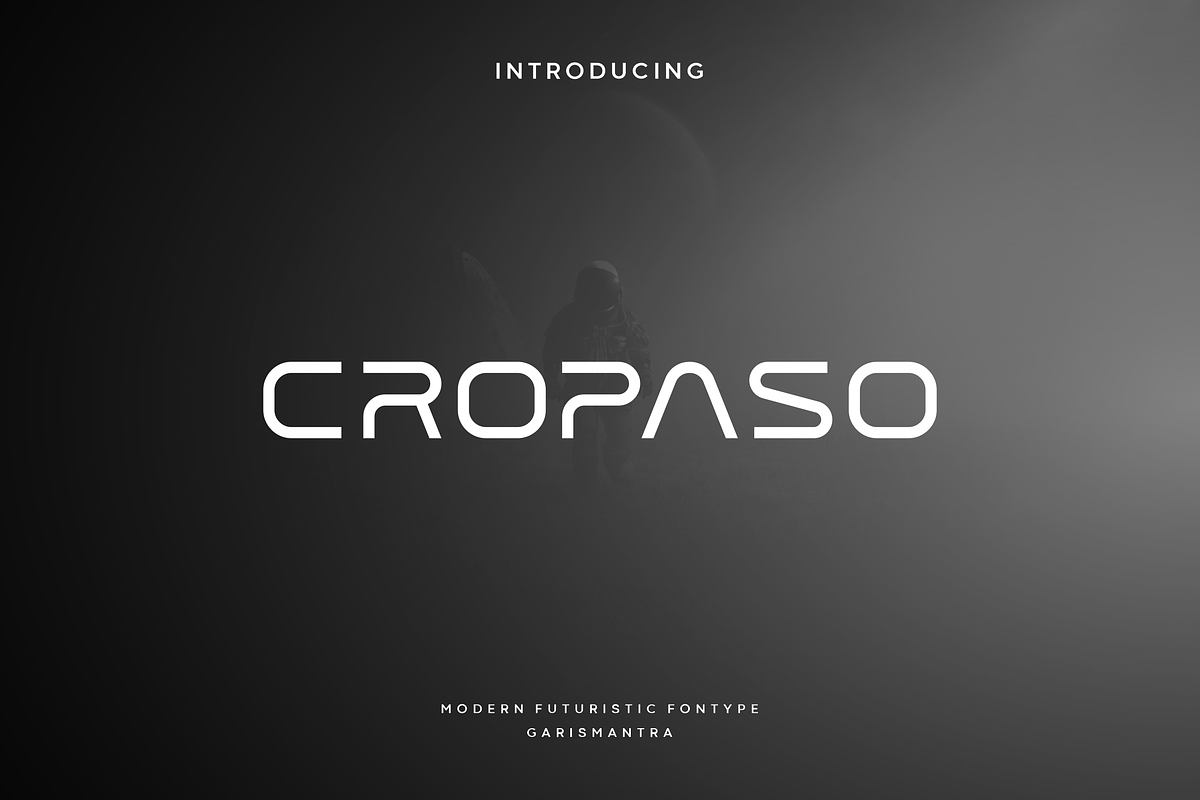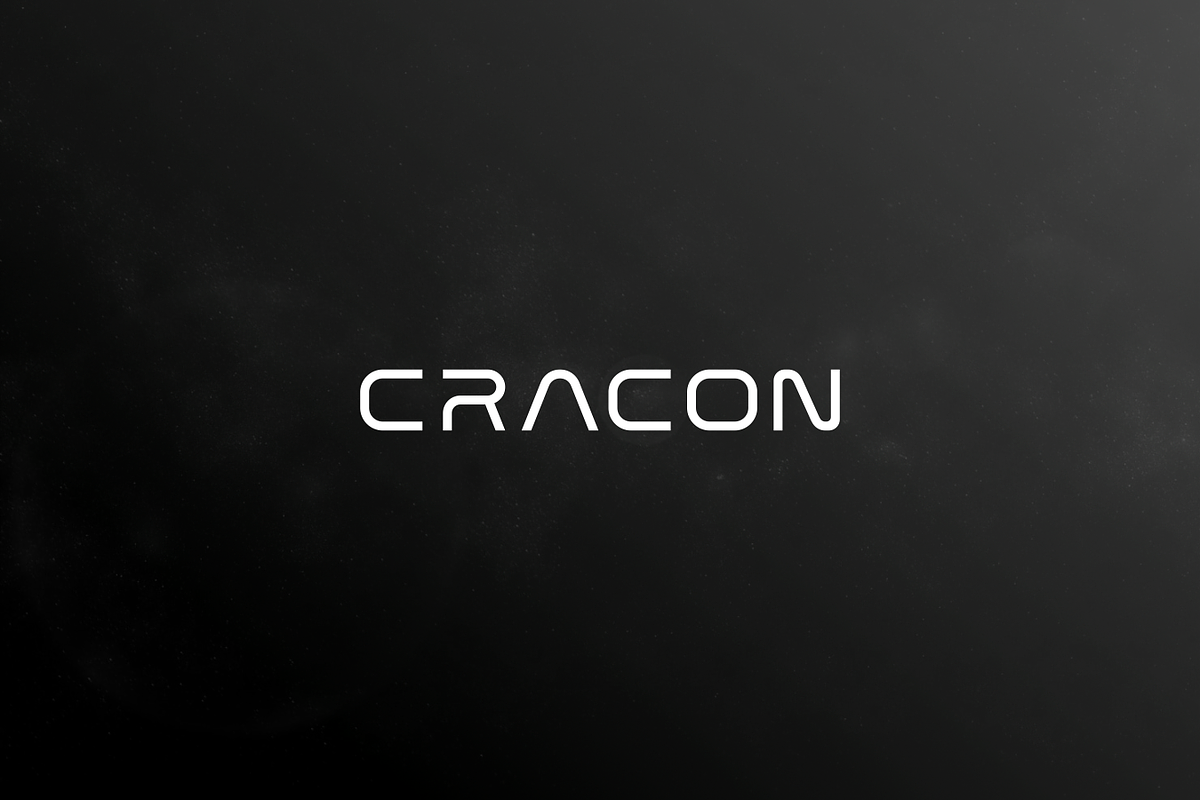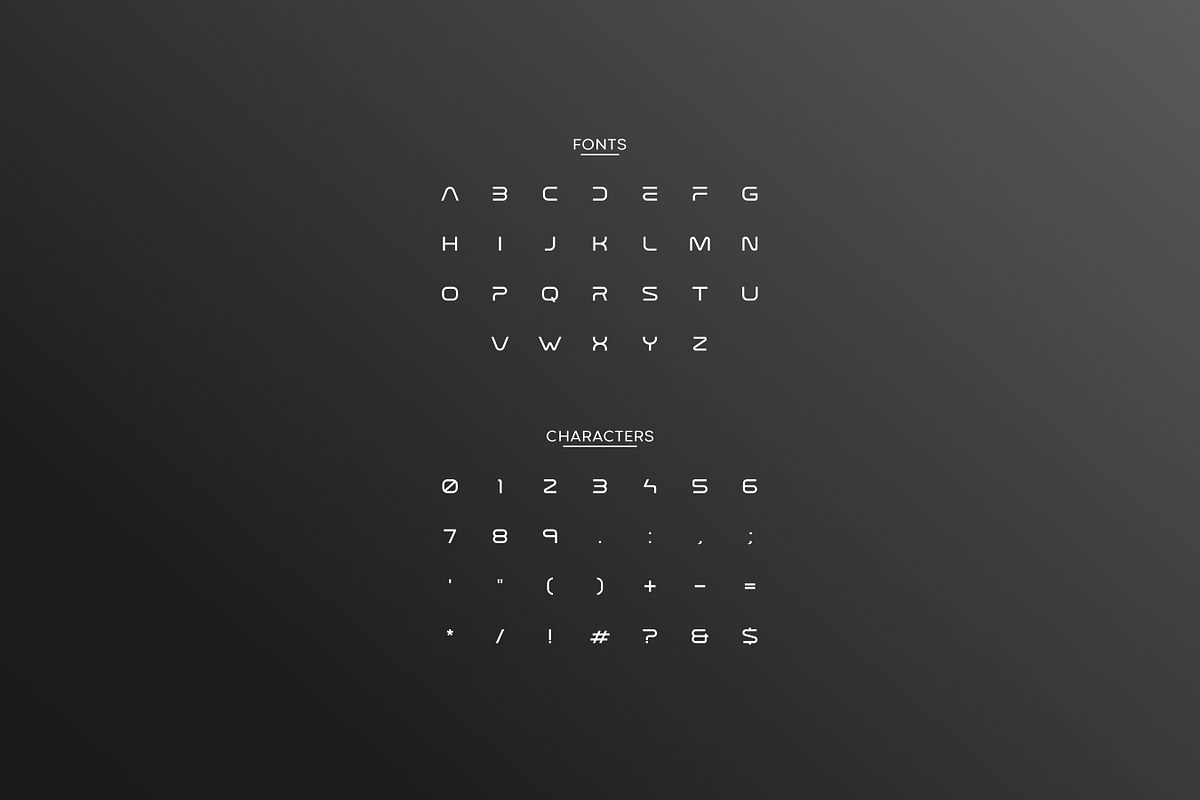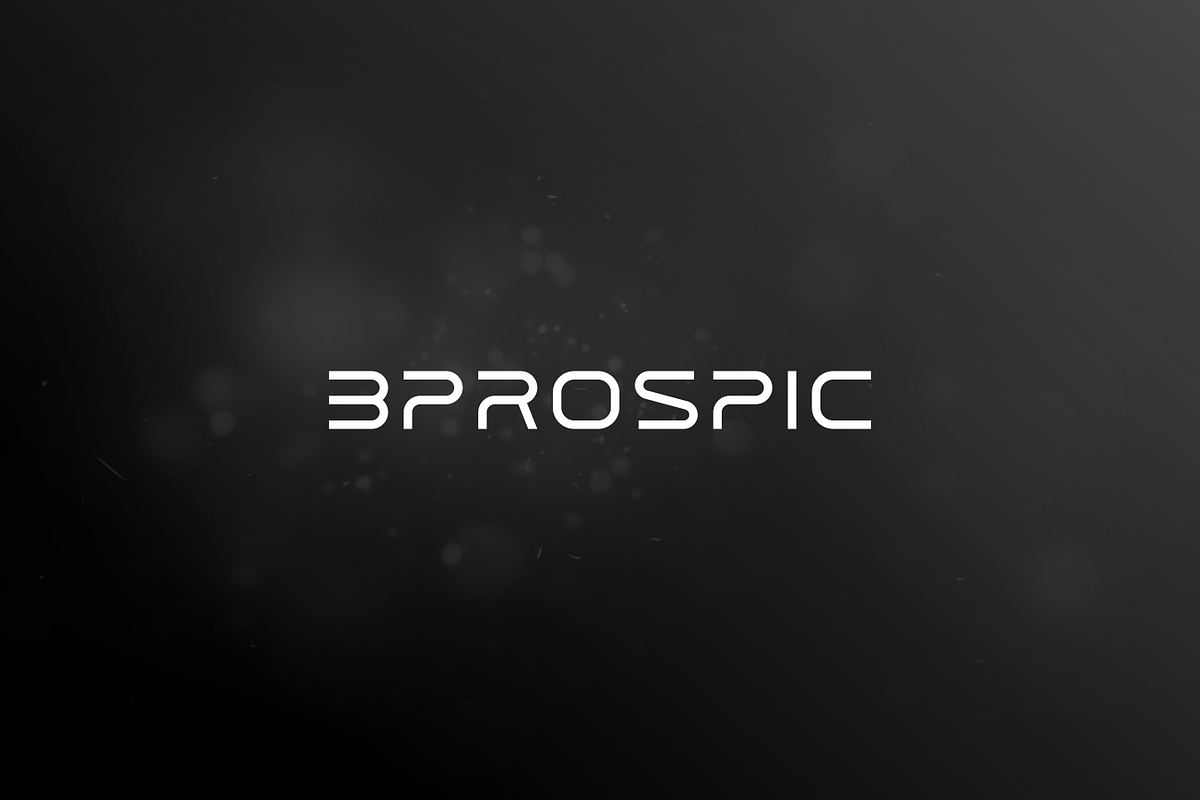
Cropaso
Cropaso is a modern, elegant and futuristic look font, with a more thin and contemporary version. This font would be ideal for writing web designs, business cards, or just about anything else that requires a unique touch. With a sophisticated concept and very elegant shape that will look modern on future technology designs, don't hesitate to have this font. Cropaso futuristic, modern and timeless fonts will make your work more professional.